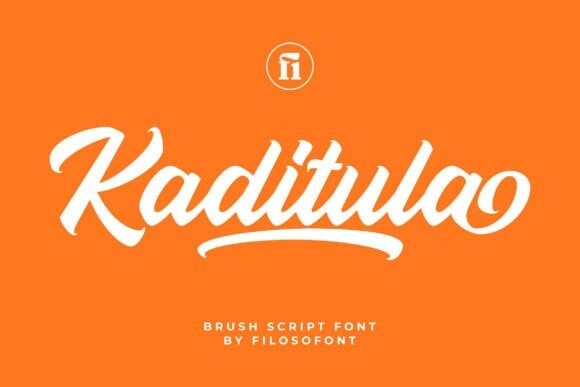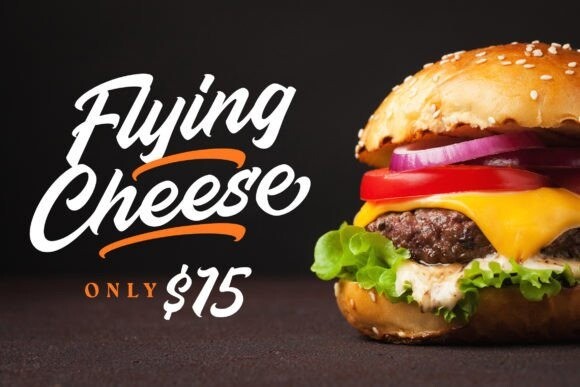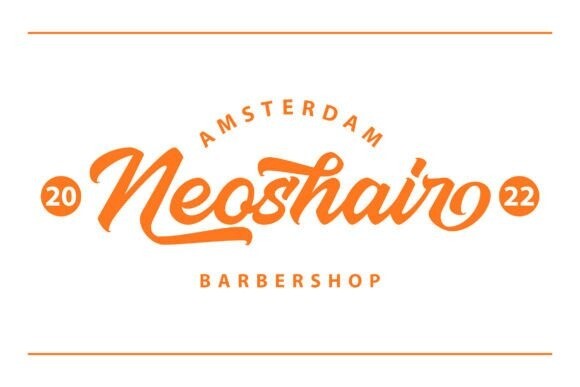
Kaditula Font
Kaditula is a cool and modern brush script font. Contemporary and fresh, it is perfect for any design you wish to create. Add it to your creative projects and make them outstanding!